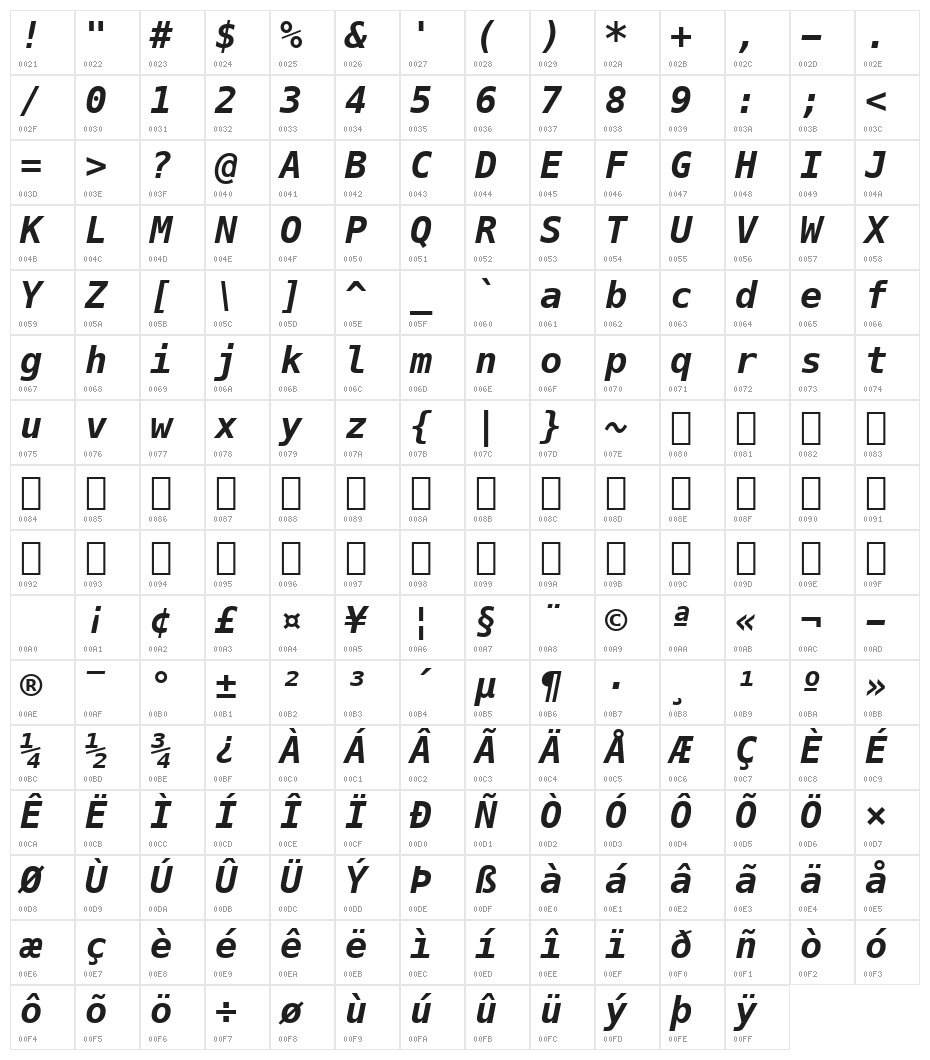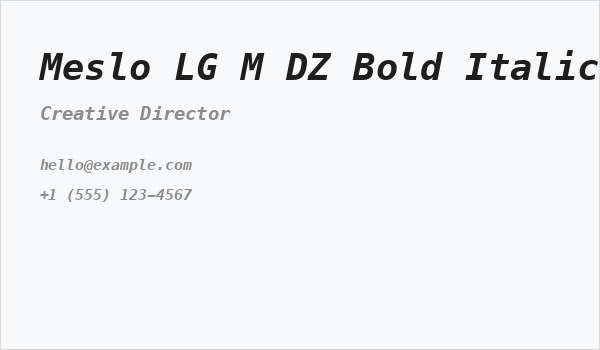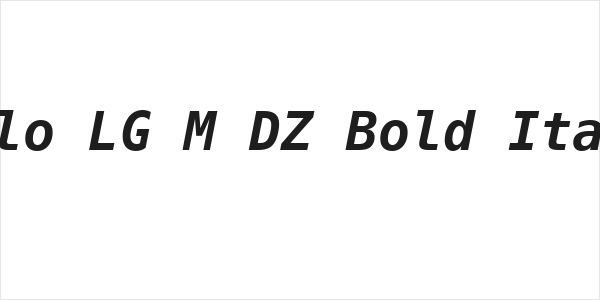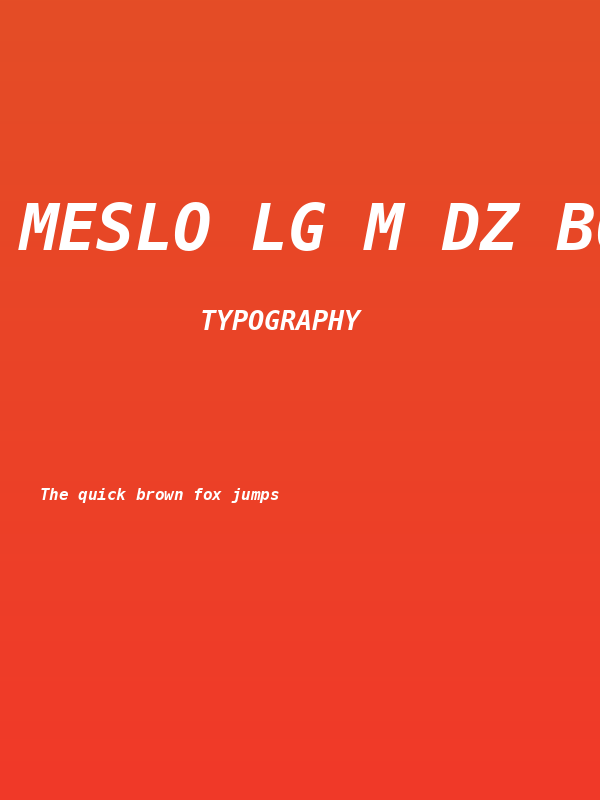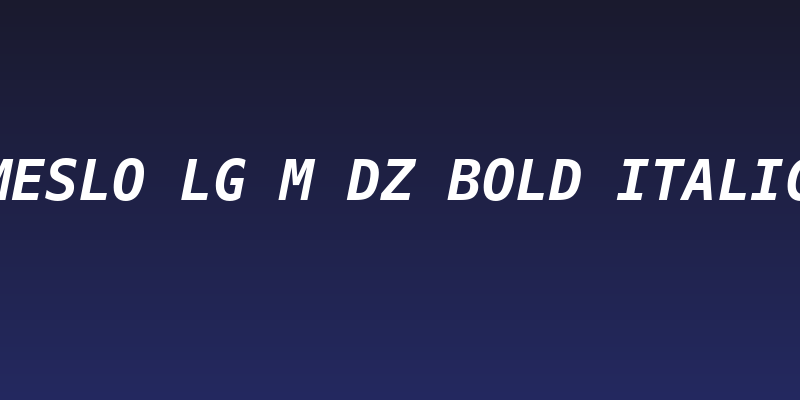
Meslo LG M DZ Bold Italic Font
Meslo LG M DZ Bold Italic Description
This font features a bold and italicized style, offering a modern and dynamic appearance. The characters are monospaced, ensuring uniform spacing which is ideal for coding and technical documentation. The slanted design adds a sense of motion and emphasis, making it suitable for highlighting important text. The strokes are consistent in weight, providing a clean and structured look. The font maintains clarity and readability even at smaller sizes, making it versatile for various applications.
| Use Case | Coding, Technical documentation, Emphasized text |
| Proposed Projects | Ideal for coding environments, technical documentation, and any project requiring clear and structured text presentation. |